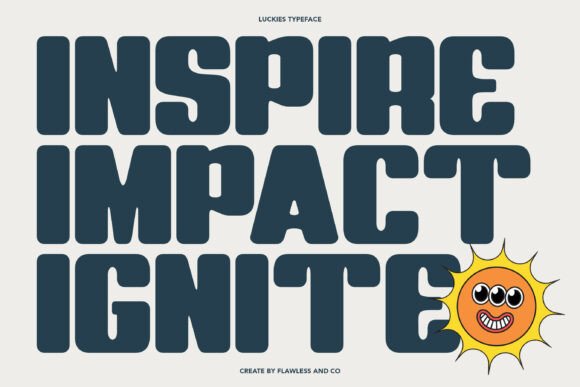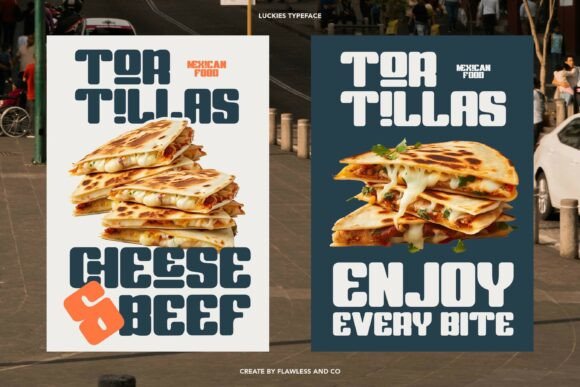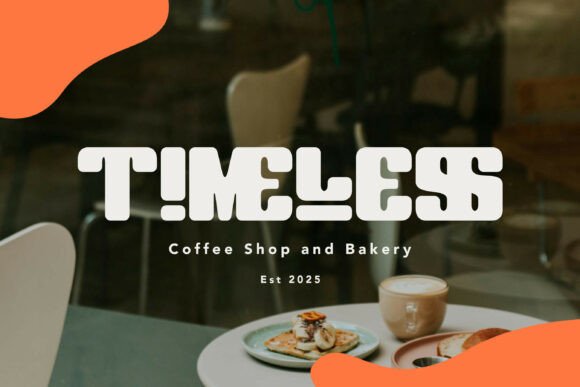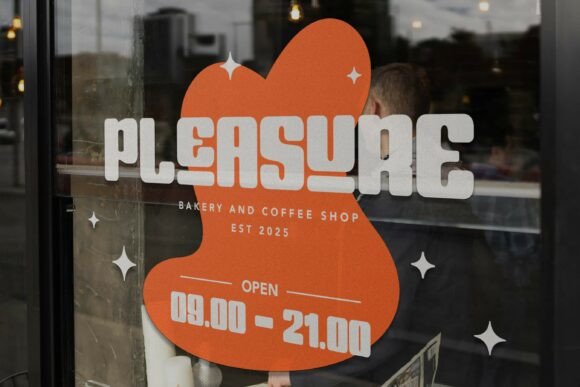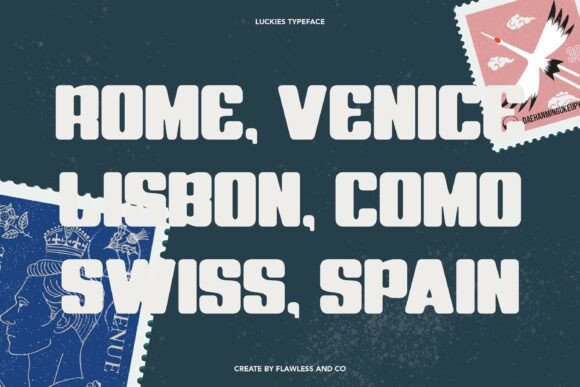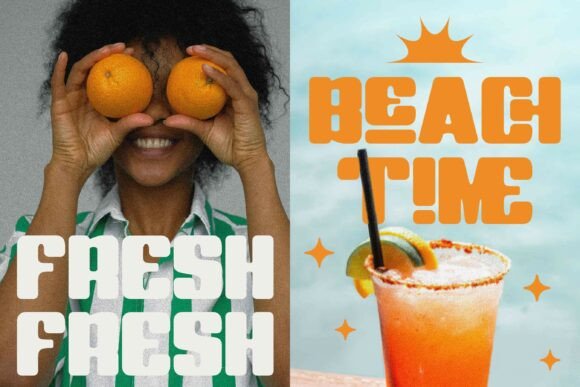
Introduction to Luckies Font
LUCKIES is a bold display typeface that blends the vintage charm of retro design with the clean aesthetics of modern minimalism.
Its thick, confident strokes are balanced by smooth, rounded curves, creating a look thatโ€™s both powerful and approachable This font is designed to make a bold statement while keeping a friendly and nostalgic vibe โ€” ideal for designers who want to inject personality into their branding, signage, packaging, or editorial projects.